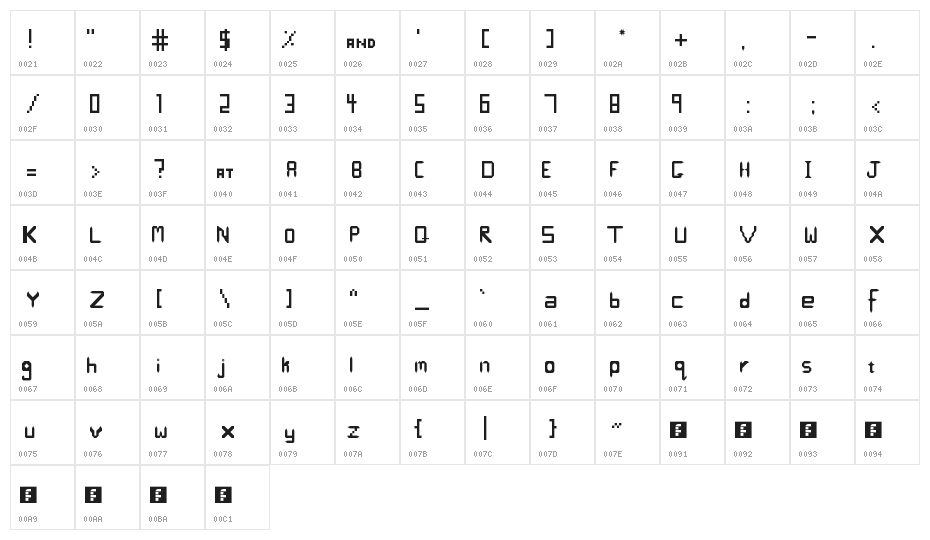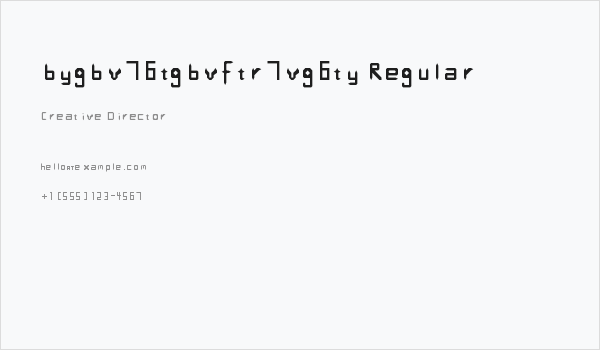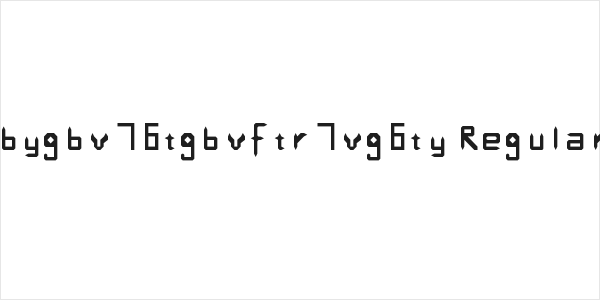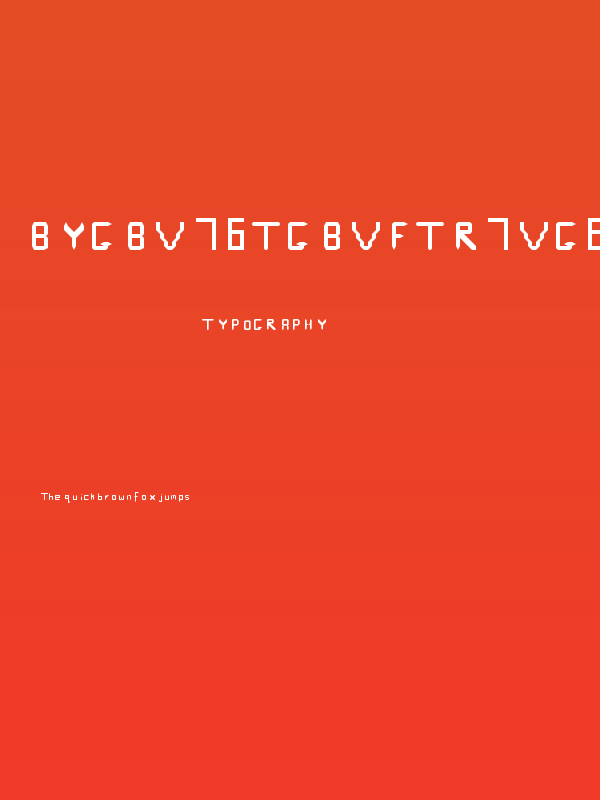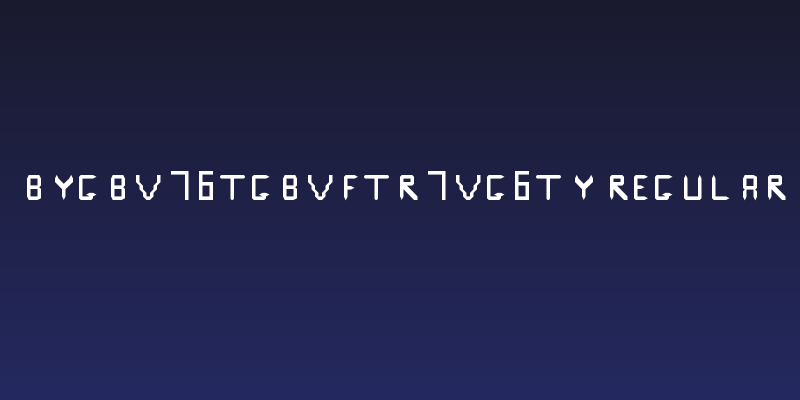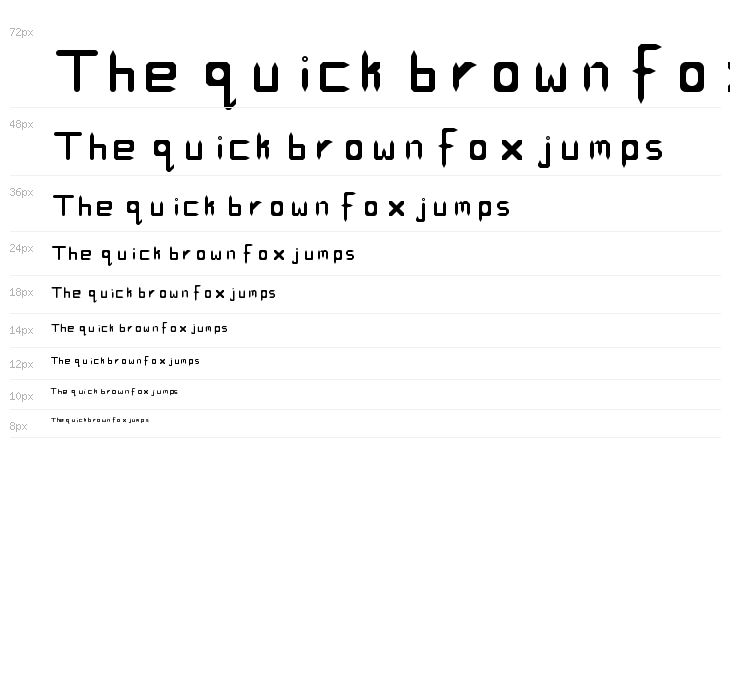
bygbv76tgbvftr7vg6ty Regular Font
bygbv76tgbvftr7vg6ty Regular Description
This font features a unique, angular design with sharp edges and geometric forms. The characters are bold and distinct, with a futuristic and slightly aggressive appearance. The uppercase letters are particularly striking, with a uniform height and width that gives them a blocky, robust feel. The lowercase letters maintain the same angular style, providing consistency across the typeface. Numbers and special characters are designed to match the overall aesthetic, ensuring a cohesive look. The font's style is reminiscent of digital or sci-fi themes, making it ideal for projects that require a modern and edgy touch.
| Proposed Projects | Ideal for sci-fi themed projects, video game titles, tech branding, and modern posters. |